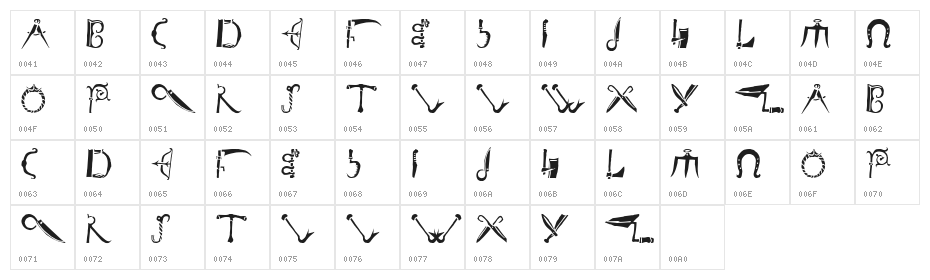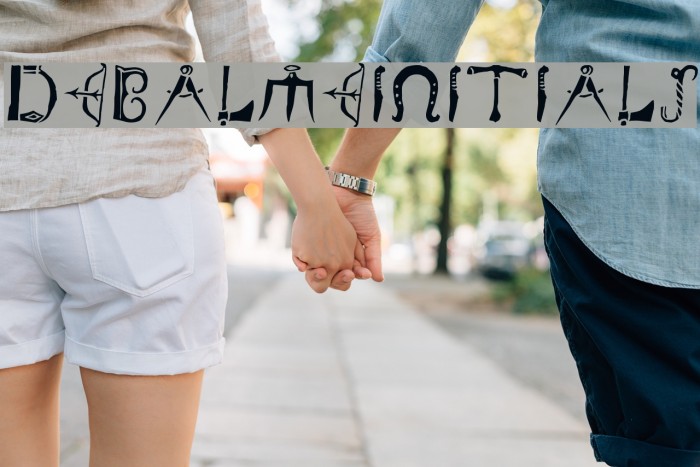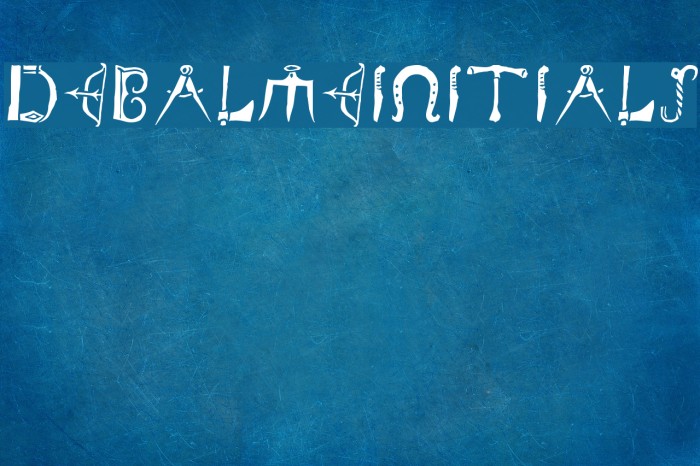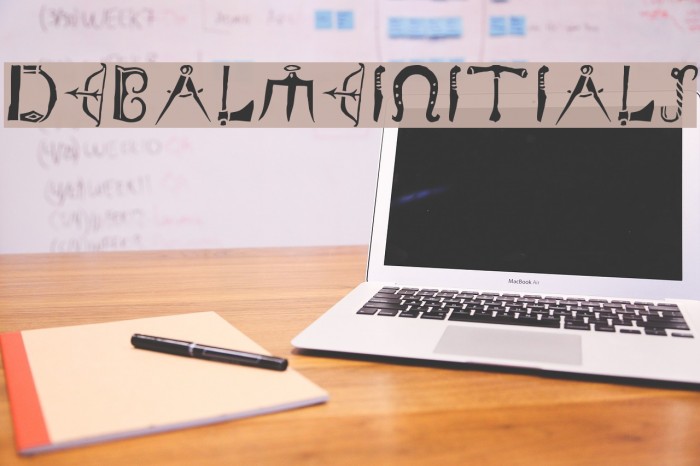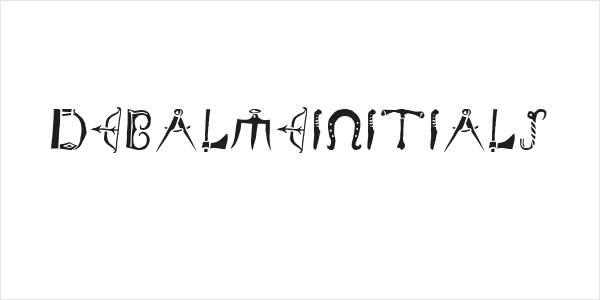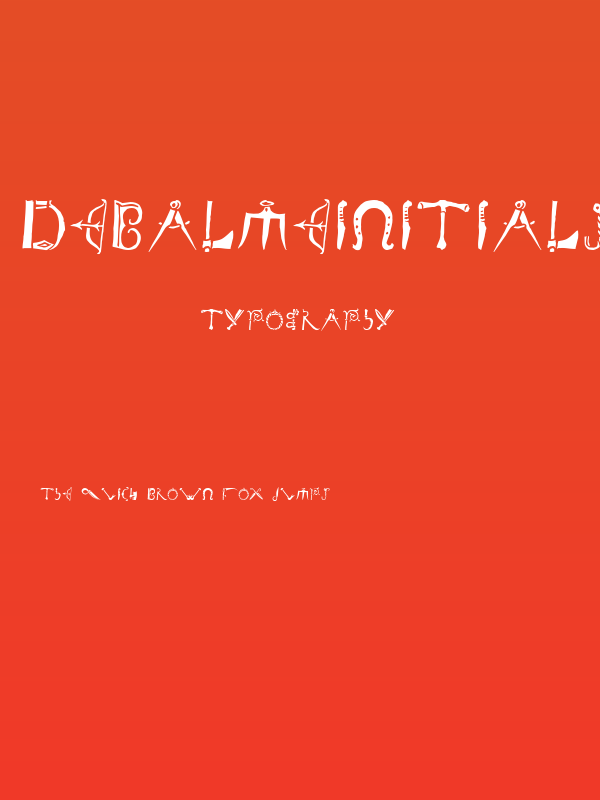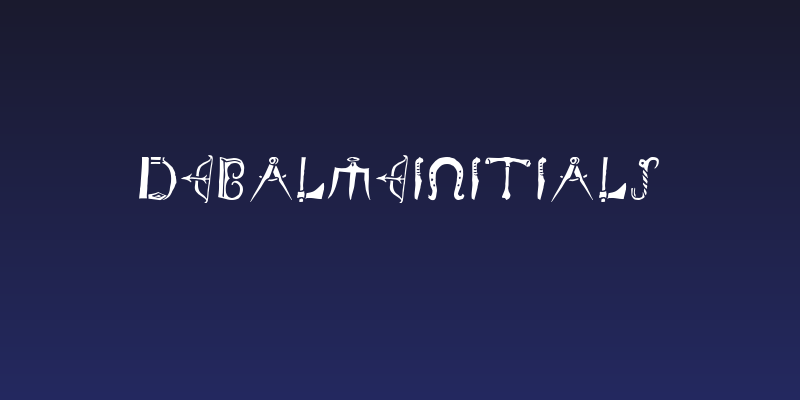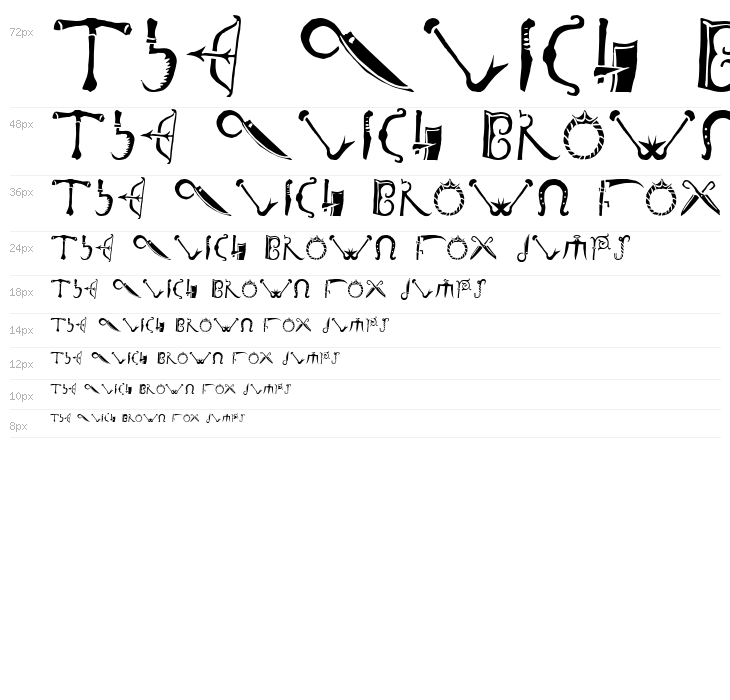
DeBalmeInitials Font
DeBalmeInitials Description
This decorative font is characterized by its intricate and artistic design, where each letter is embellished with unique and elaborate details. The uppercase letters are particularly ornate, featuring elements that resemble tools, hooks, and other mechanical motifs. The lowercase letters maintain a similar style but with slightly less complexity. The font does not include numbers or standard special characters, focusing instead on its distinctive letterforms. Its artistic nature makes it ideal for creative and decorative uses, where visual impact is prioritized over readability.
| Proposed Projects | Ideal for artistic projects, decorative headings, branding for creative industries, or any design requiring a unique and visually striking typeface. |